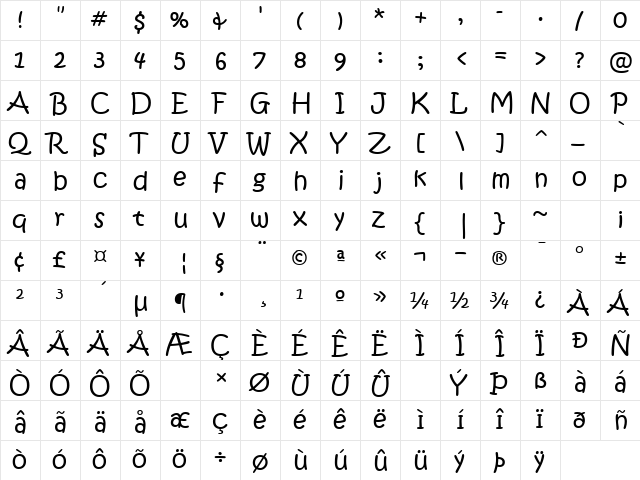
2nd Grade Print Regular
Design Context for 2nd Grade Print Typeface
2nd Grade Print takes a measured approach to typography — its balanced proportions and neutral character make it a reliable workhorse for both digital and print work.